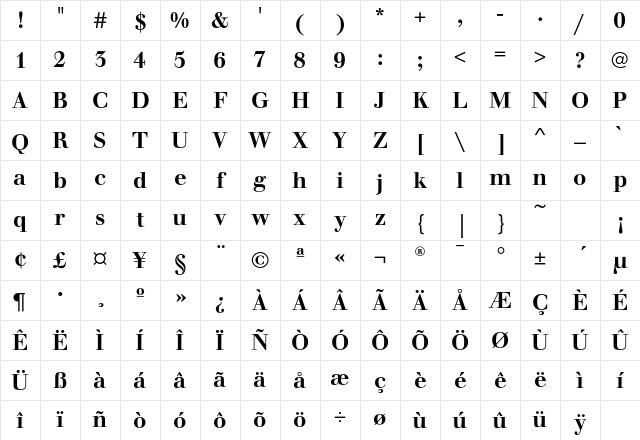
WalbaumEF Medium
WalbaumEF Family
Design Context for WalbaumEF
WalbaumEF is a composed and adaptable typeface that performs quietly and consistently across a wide range of design contexts.